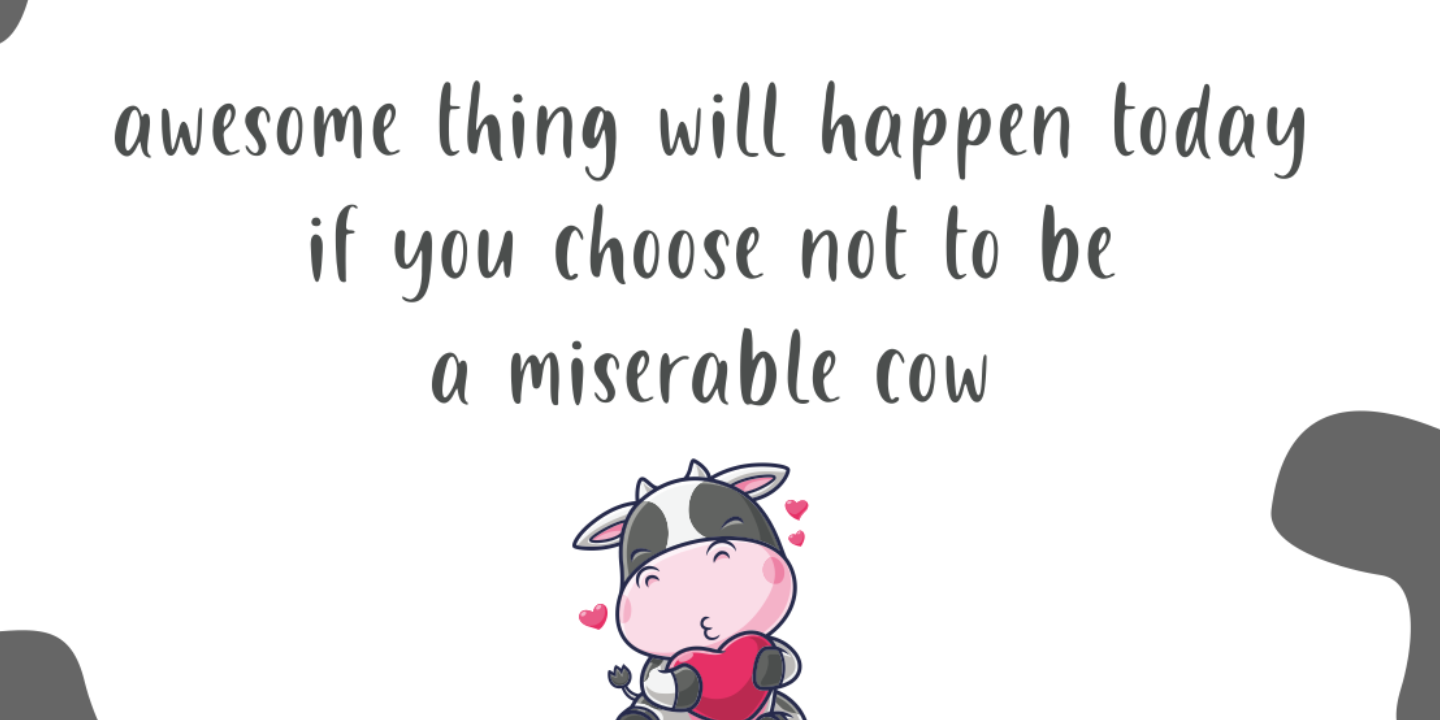
Milkhouse Font is perfect for organic dairy farm branding, artisanal cheese shop signage, farm-fresh milk product packaging, traditional creamery marketing, rural agricultural business logos, vintage dairy company identities, wholesome family farm promotions, organic farming equipment advertising, authentic farmhouse restaurant menus, and nostalgic country market displays. Its wholesome farmhouse character makes it ideal for projects requiring agricultural authenticity and traditional farming representation.
What makes Milkhouse Font exciting is its charming embodiment of farmhouse tradition and dairy farm heritage with warm letterforms and rustic characteristics that capture the essence of authentic farm life and agricultural excellence. The font features comfortable proportions, farmhouse-inspired details, and wholesome character construction that create authentic rural atmosphere and farming appeal. Its genuine personality brings warmth and trustworthiness to contemporary designs while maintaining the clarity essential for agricultural communications and farm marketing presentations. The carefully crafted rustic elements ensure authentic farm feeling while preserving the distinctive character that embodies the essence of dairy farming and agricultural excellence.
Milkhouse Font comes in multiple farmhouse variations including Light, Regular, Medium, Bold, and Rustic styles. Each family member maintains the distinctive farming character while offering comprehensive flexibility for agricultural typography and farm brand system development. The complete font family includes alternate characters, farm symbols, and rustic decorative elements that provide extensive tools for creating immersive farmhouse design experiences and authentic agricultural brand storytelling.
Whether you're developing farm brands, dairy companies, or agricultural business projects, Milkhouse Font Free Download provides the wholesome authenticity needed to communicate with farm-conscious consumers and agricultural communities who appreciate traditional farming and dairy heritage. The font's rustic appeal resonates with farmers, dairy producers, and organic food enthusiasts seeking authentic agricultural credibility and farmhouse sophistication. Its comprehensive character set includes farming symbols and agricultural marks, making it perfect for creating complete farm brand systems and memorable agricultural storytelling across diverse farming applications and tradition-focused design projects that celebrate dairy heritage and agricultural excellence.